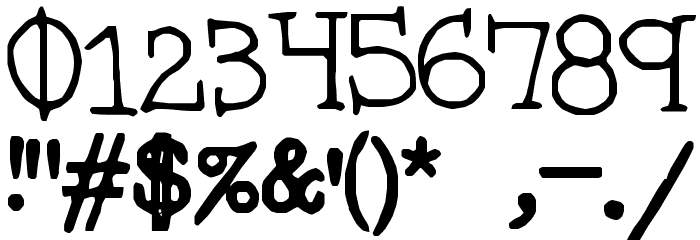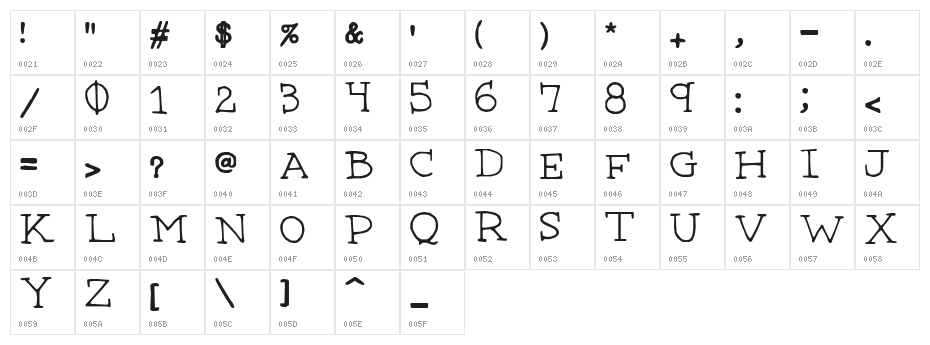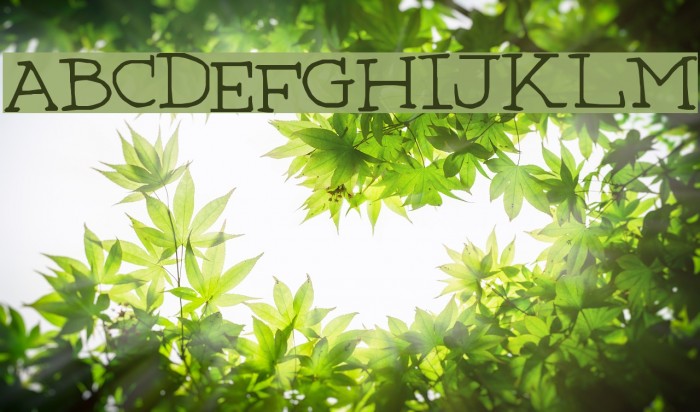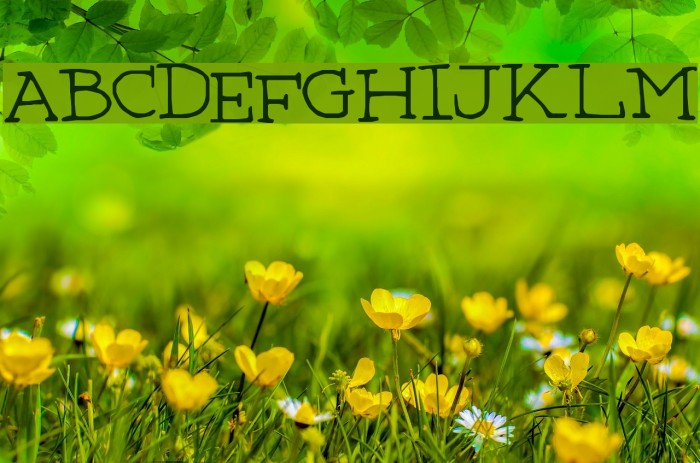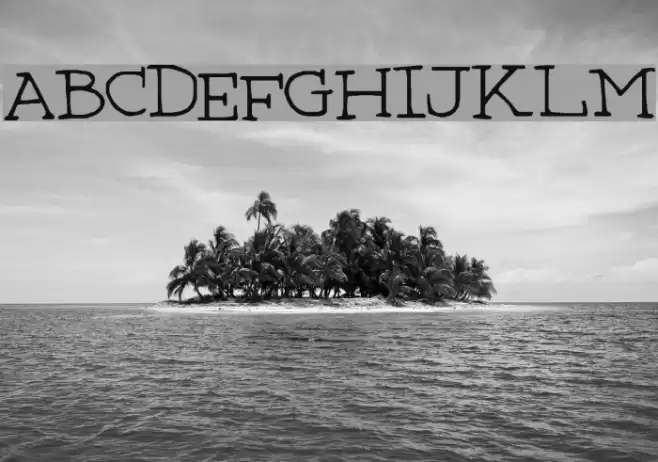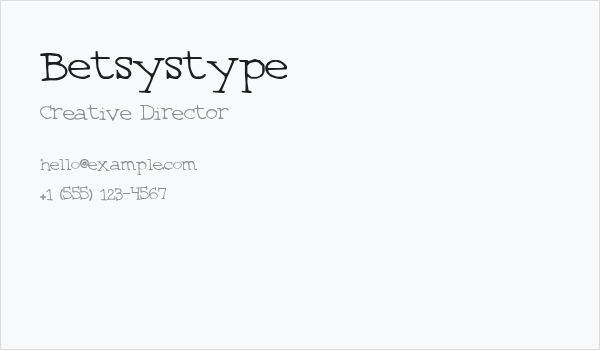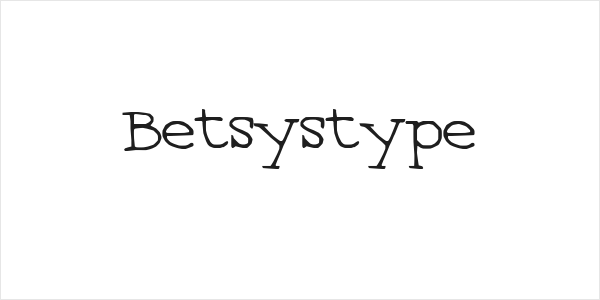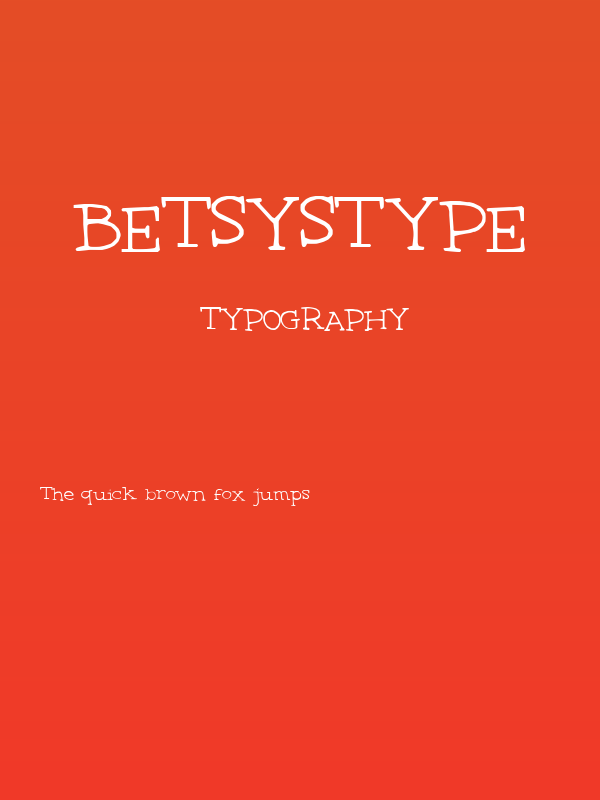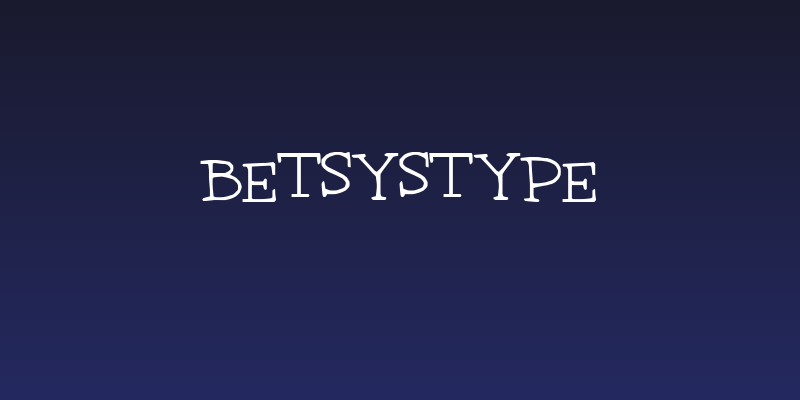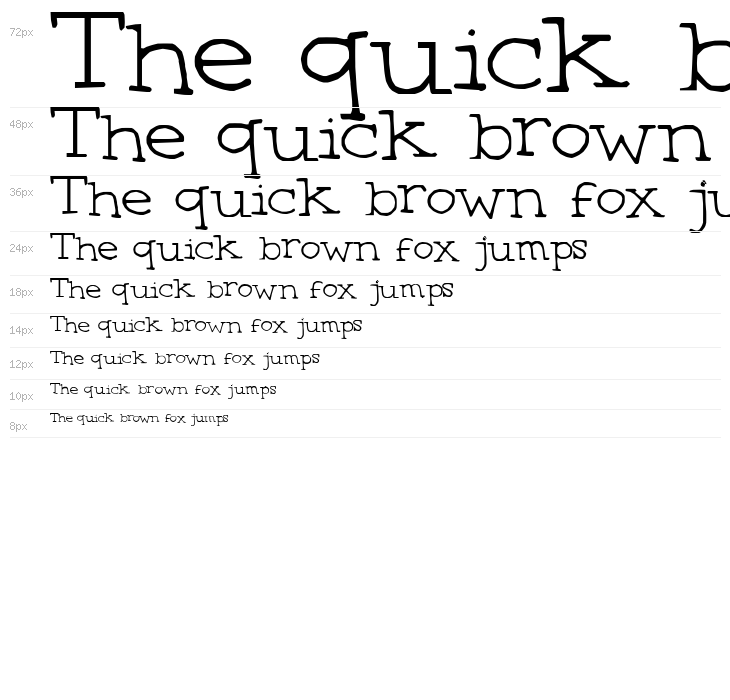
Betsystype Font
Betsystype Description
This font features a playful and slightly irregular design, reminiscent of hand-drawn lettering. The characters have a whimsical quality, with uneven lines and quirky details that give it a unique personality. The uppercase letters are bold and prominent, while the lowercase letters maintain a consistent style with a slightly more relaxed appearance. The numbers are distinct and easy to read, with a similar playful touch. Special characters are creatively designed, adding to the overall charm. This font is perfect for projects that require a fun and informal look.
Proposed ProjectsIdeal for children's books, greeting cards, playful branding, and creative posters.